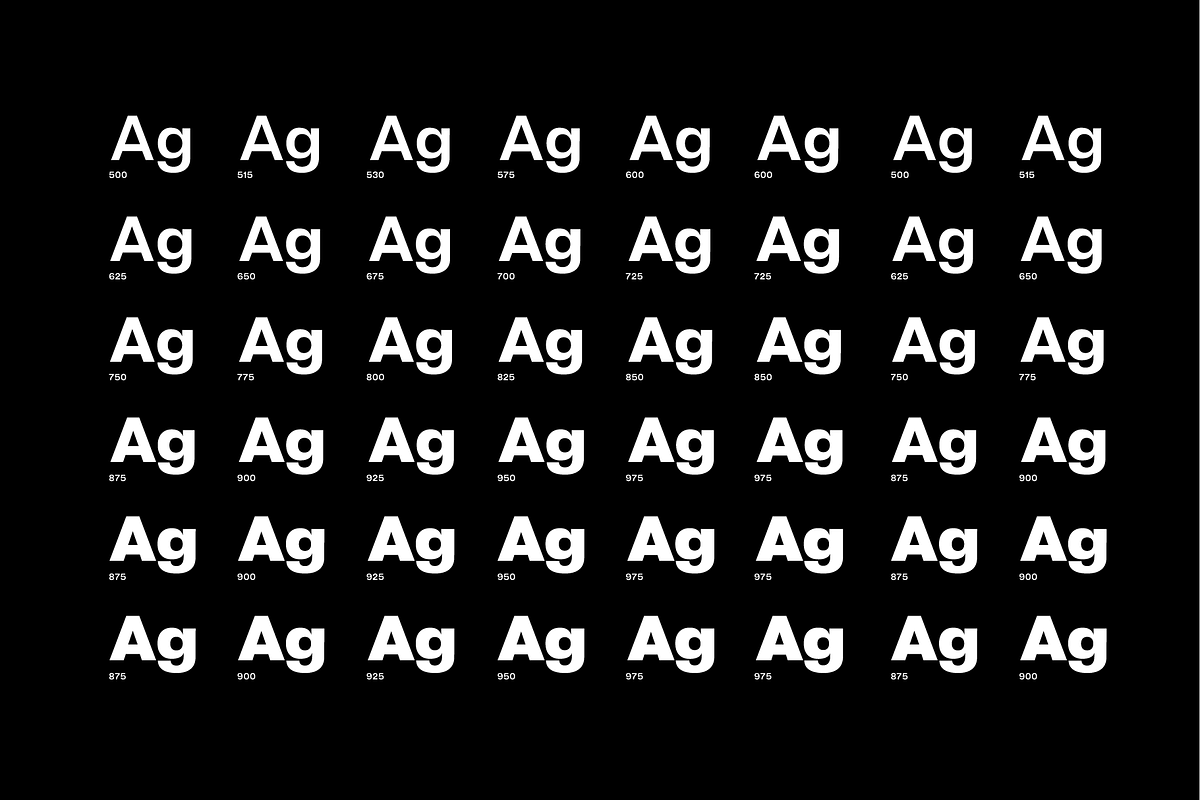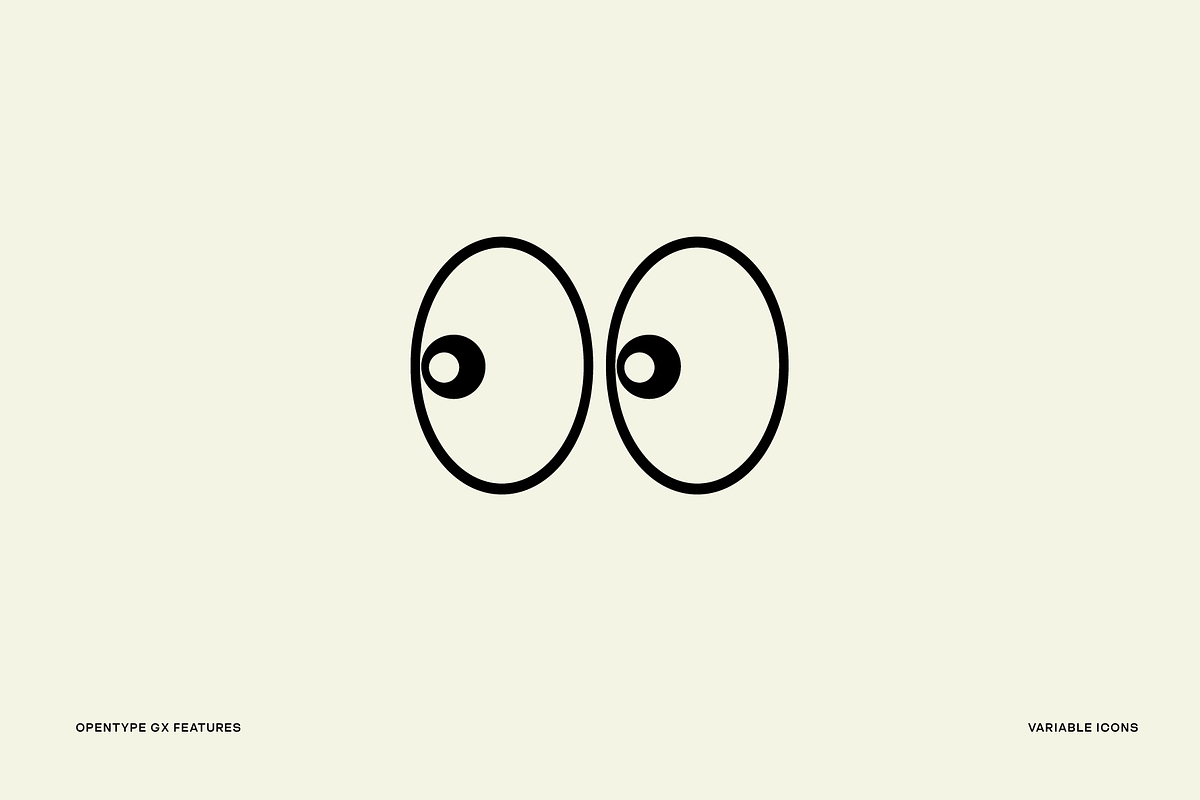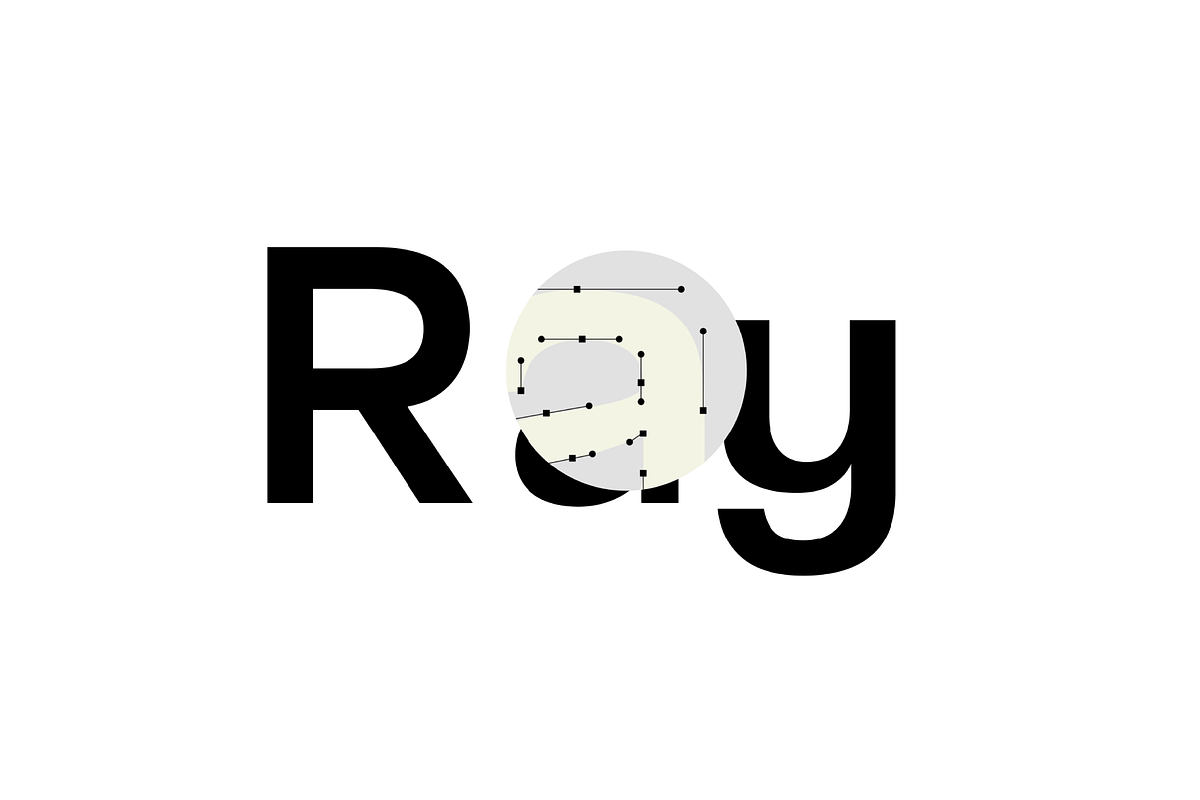
Calipso ND: display neo-grotesque
Calipso ND is a contemporary neo-grotesque display typeface that gets more vigorous as its weight increases. It comes in 6 styles and as a variable typeface — with full Latin Plus language support.
- Stylistic Sets + Alternates
- Contextual Alternates
- Standard & Discretionary Ligatures
- Case-Sensitive Forms
- 495 Glyphs/Style
- Fractions
- Tabular Figures
- Icons & Arrows